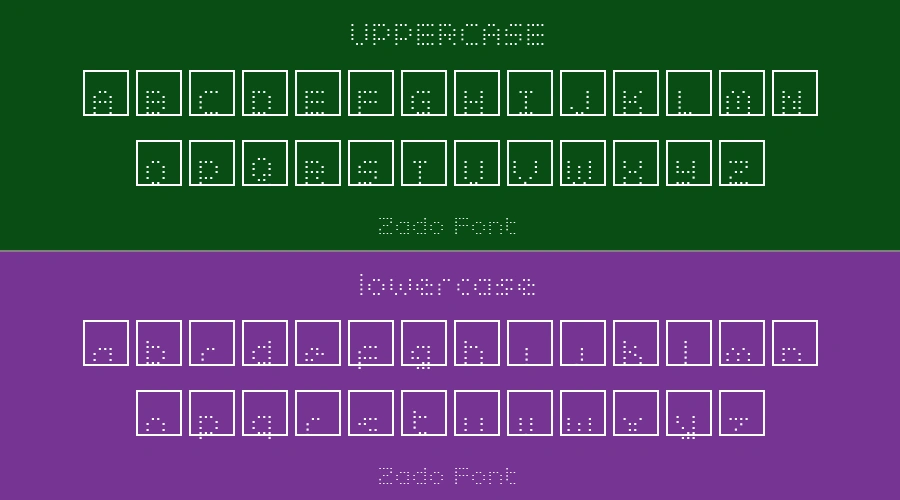
About Zado Font
Zado Font stands out for its distinctive combination of angled joins and legibility. Ideal for magazine covers, it provides the impact and aesthetic refinement that professional projects demand. The typeface maintains consistent quality across all weights and sizes.
Key features include refined engineered curves and practical decorative caps, enhancing typographic expression. In traditional announcements applications, Zado Font demonstrates exceptional format conversion. The joint construction and artistic merit contribute to its distinctive character and professional appeal.